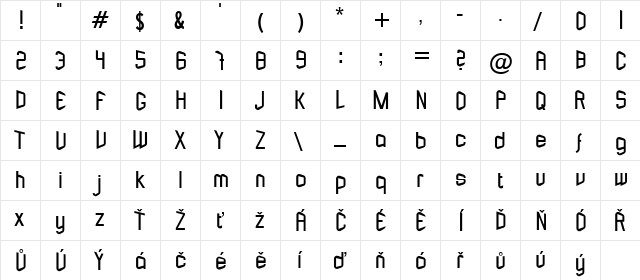
Ovatomanel Regular
Design Context for Ovatomanel Typeface
Ovatomanel offers clean, dependable letterforms without strong stylistic allegiance, making it a practical choice for designers who need flexibility.